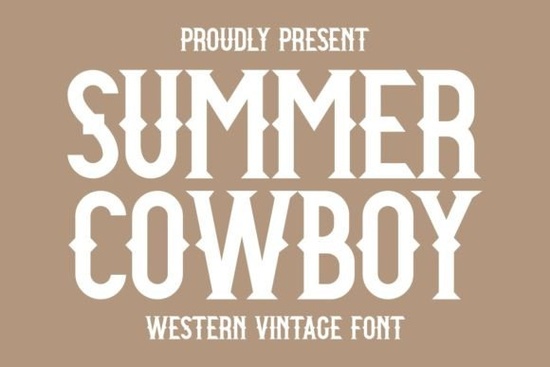
If you need a typeface that instantly reads as rugged, nostalgic, and ready for merch, Summer Cowboy Font delivers exactly that. This bold Western vintage font leans heavily into the slab serif category, giving you thick, sturdy letterforms that hold up well on screen-printed tees, embroidered totes, and rustic home decor. Designers and small shop owners typically choose this style when they want noticeable character without sacrificing readability at larger sizes.
What makes this Western-style typeface work for print projects?
The strength of a display font like this comes down to structure. Heavy stems, squared-off serifs, and consistent stroke width keep the letters crisp when scaled up for posters or shrunk down for mug wraps. Vintage-inspired lettering often turns muddy if the details are too fine, but this design stays blocky and clean. That makes it forgiving for heat transfer vinyl, direct-to-garment printing, and laser engraving.
When you are laying out text, keep these practical points in mind:
- Track it slightly loose. Tight spacing can make thick serifs collide, especially on curved surfaces like drinkware.
- Stick to short phrases. Display fonts shine in headlines, brand names, or two-to-four word quotes. Long paragraphs will feel heavy.
- Pair with a simple sans serif. Let the Western font carry the personality while a clean, lightweight typeface handles the details.
Which products pair best with bold vintage lettering?
Print-on-demand sellers and crafters usually see the best results when the typography matches the product’s vibe. Rustic lettering naturally fits apparel, home goods, and outdoor-themed accessories. You will notice it works particularly well on:
- T-shirts and hoodies with distressed or vintage wash finishes
- Ceramic mugs and tumblers where thick strokes survive the wrap distortion
- Tote bags and canvas pillows that benefit from a handcrafted, lodge-inspired look
- Event posters and farm stand signs that need quick readability from a distance